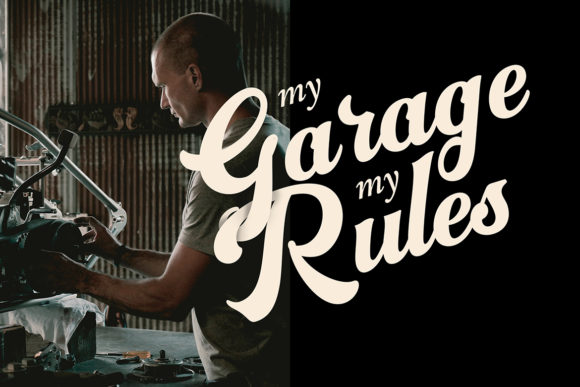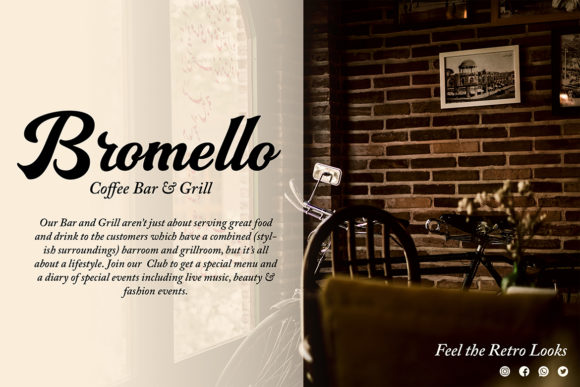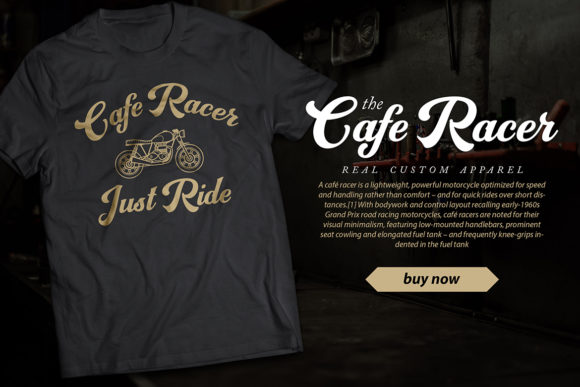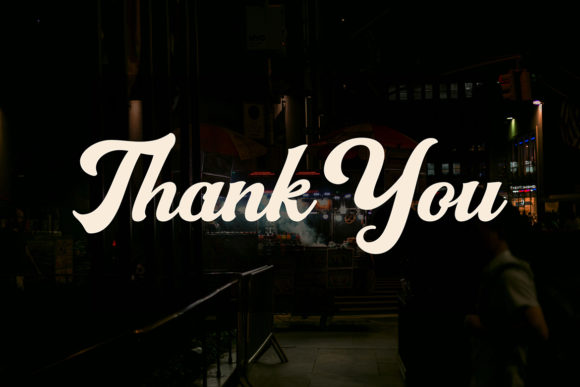
Vinesday Font
About Vinesday Font
Vinesday features a natural calligraphic style with vintage influences. This gorgeous script will look beautiful on invitations, greeting cards, branding materials, business cards, quotes, posters, and more!